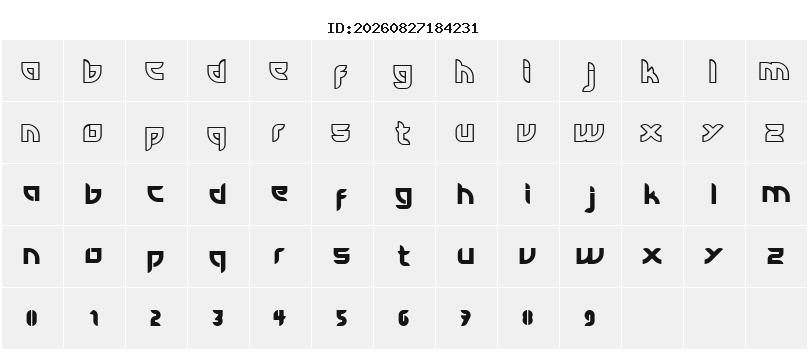
tianrod Preview
• Font Name: tianrod
• Full Font Name: tianrod tianrod
About tianrod.ttf
tianrod.ttf is a modern, elegant sans-serif font designed for ultimate readability and visual harmony. Perfect for branding, headlines, web design, and print materials.